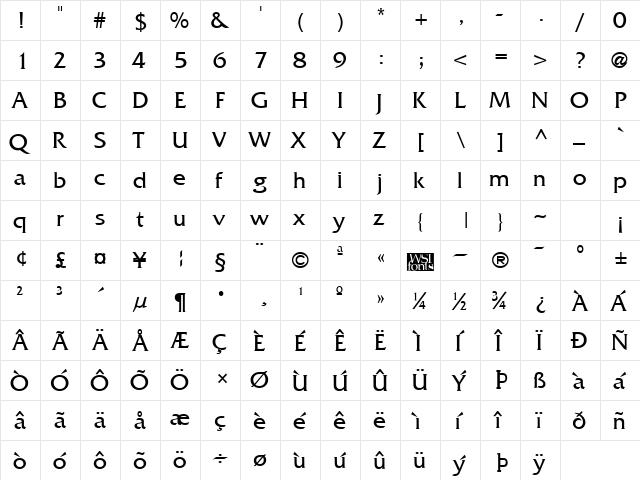
Fritz Regular
Design Context for Fritz Typeface
Fritz takes a measured approach to typography — its balanced proportions and neutral character make it a reliable workhorse for both digital and print work.